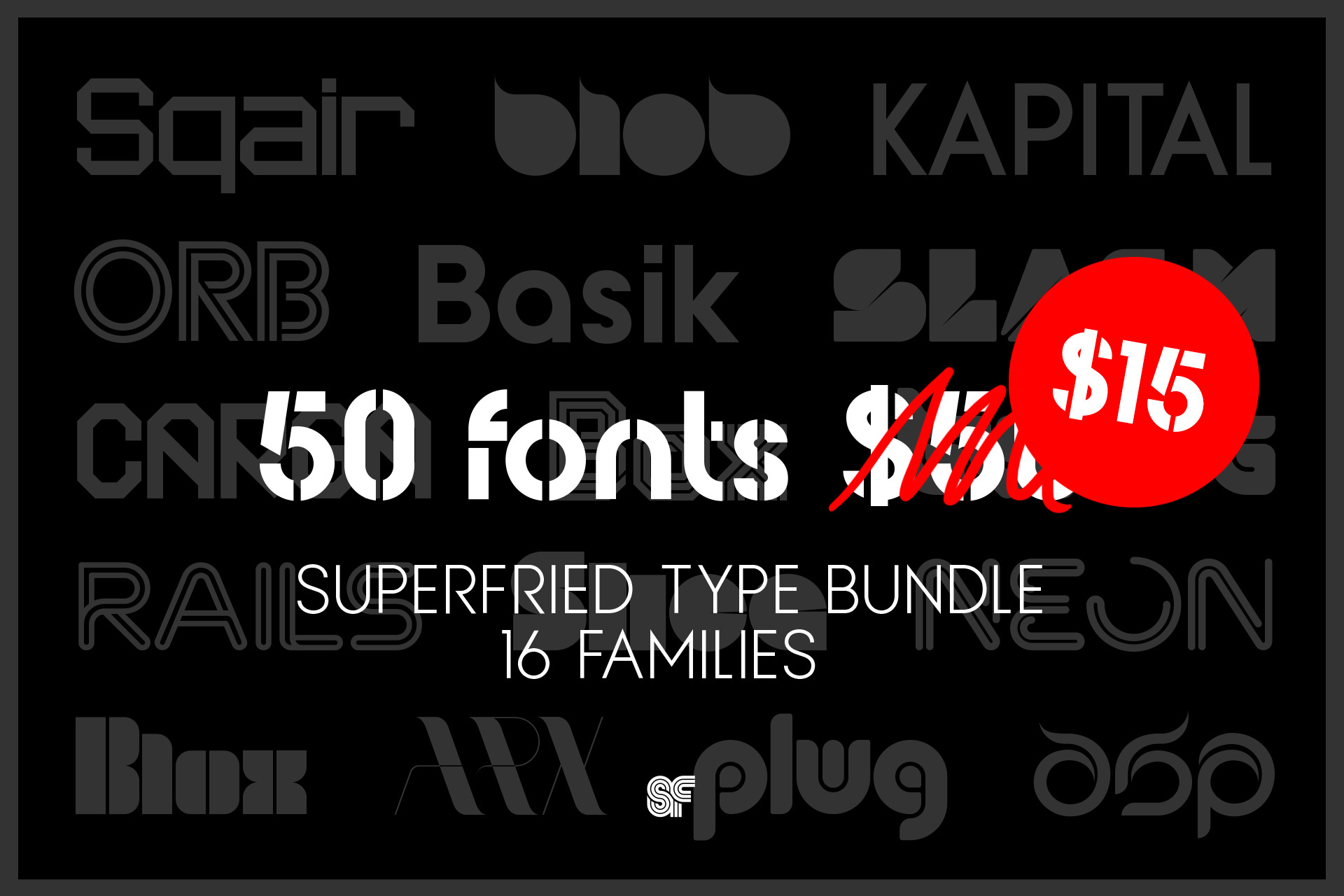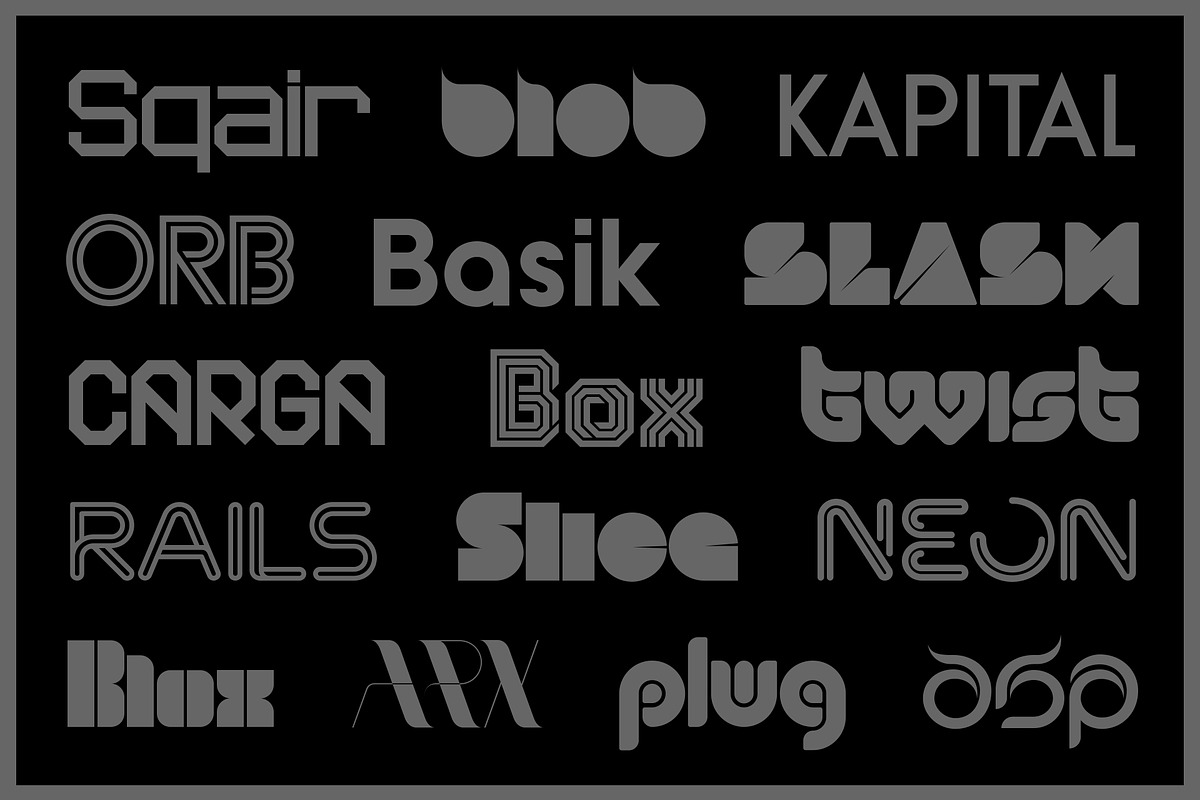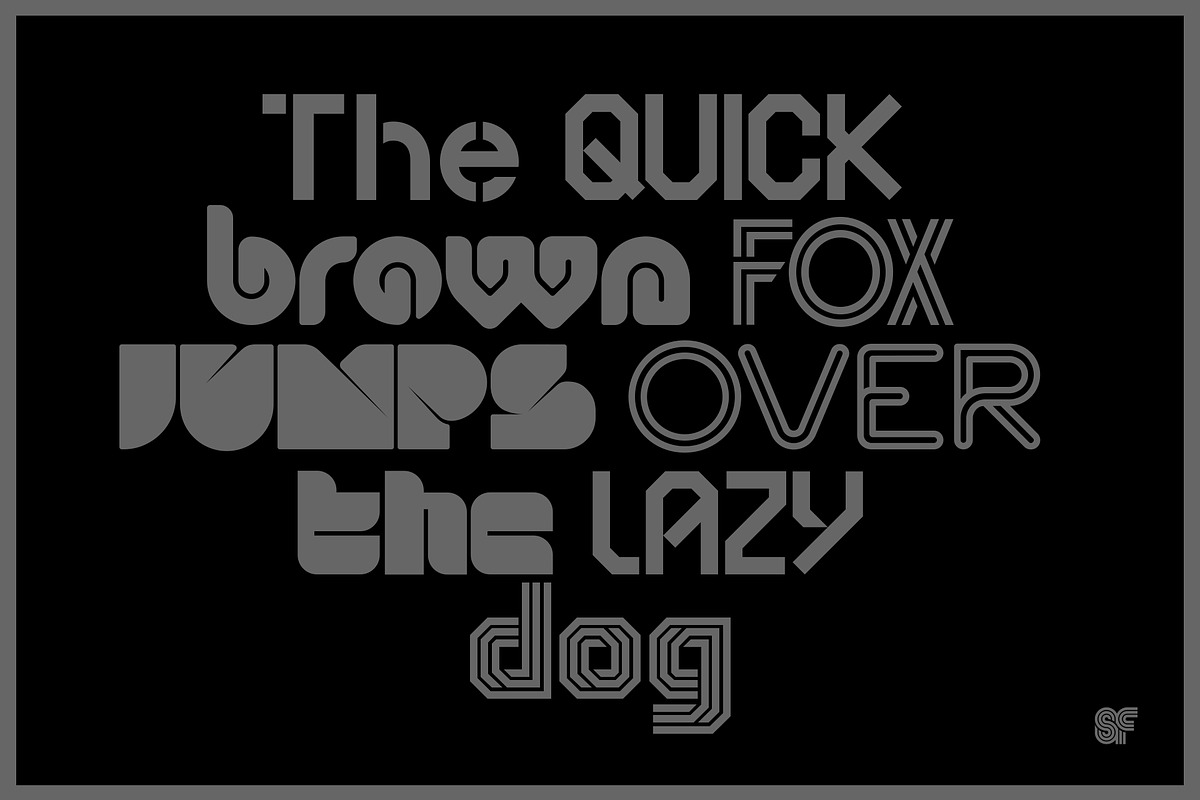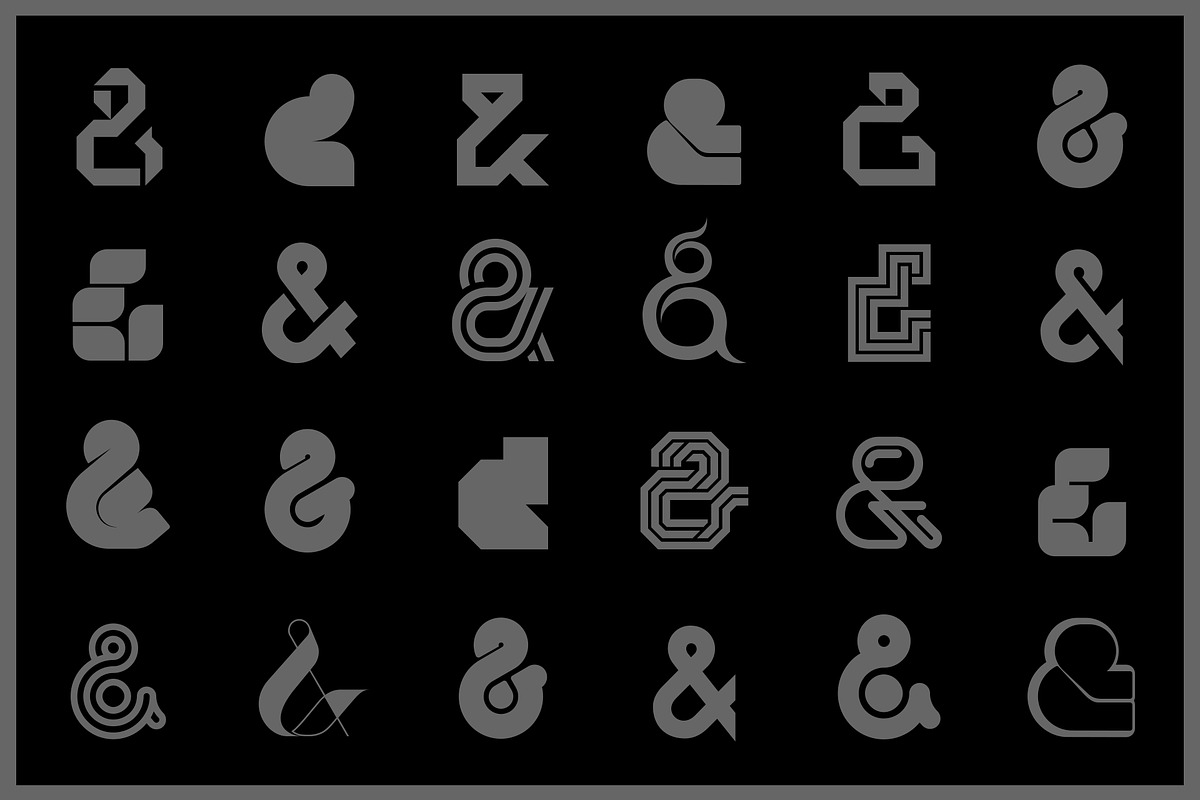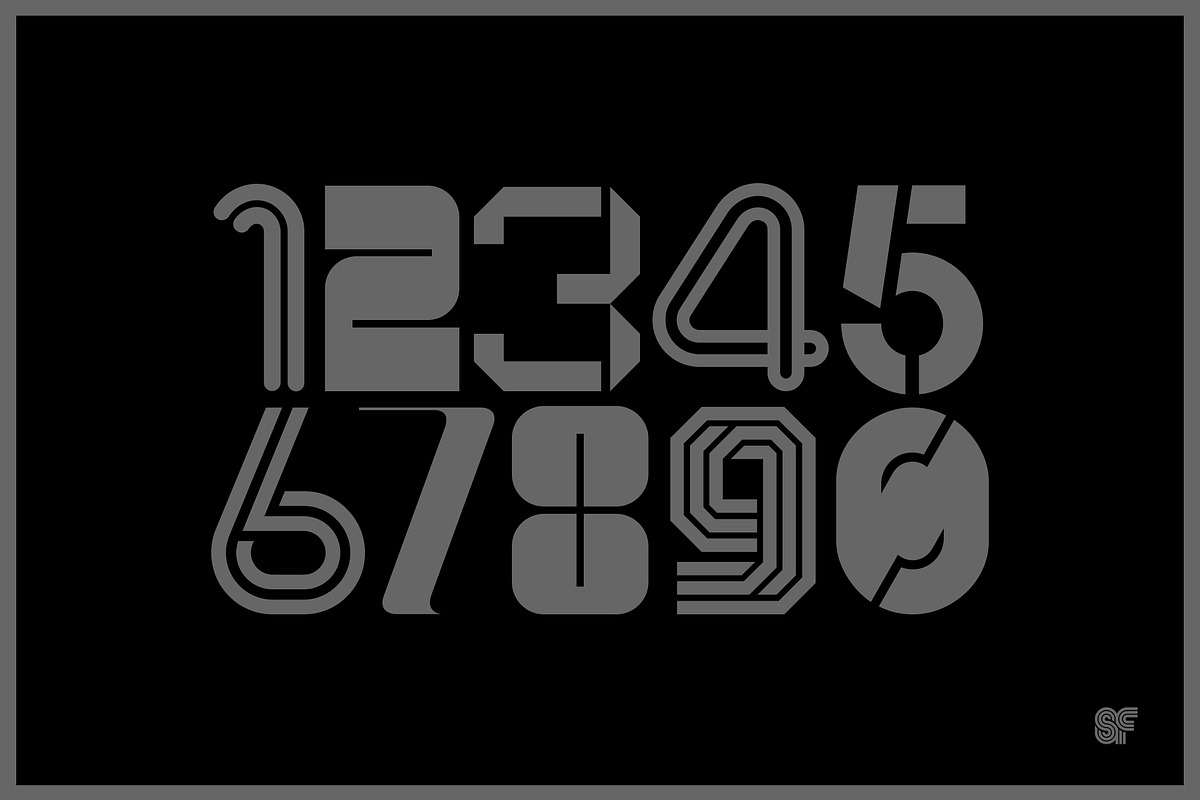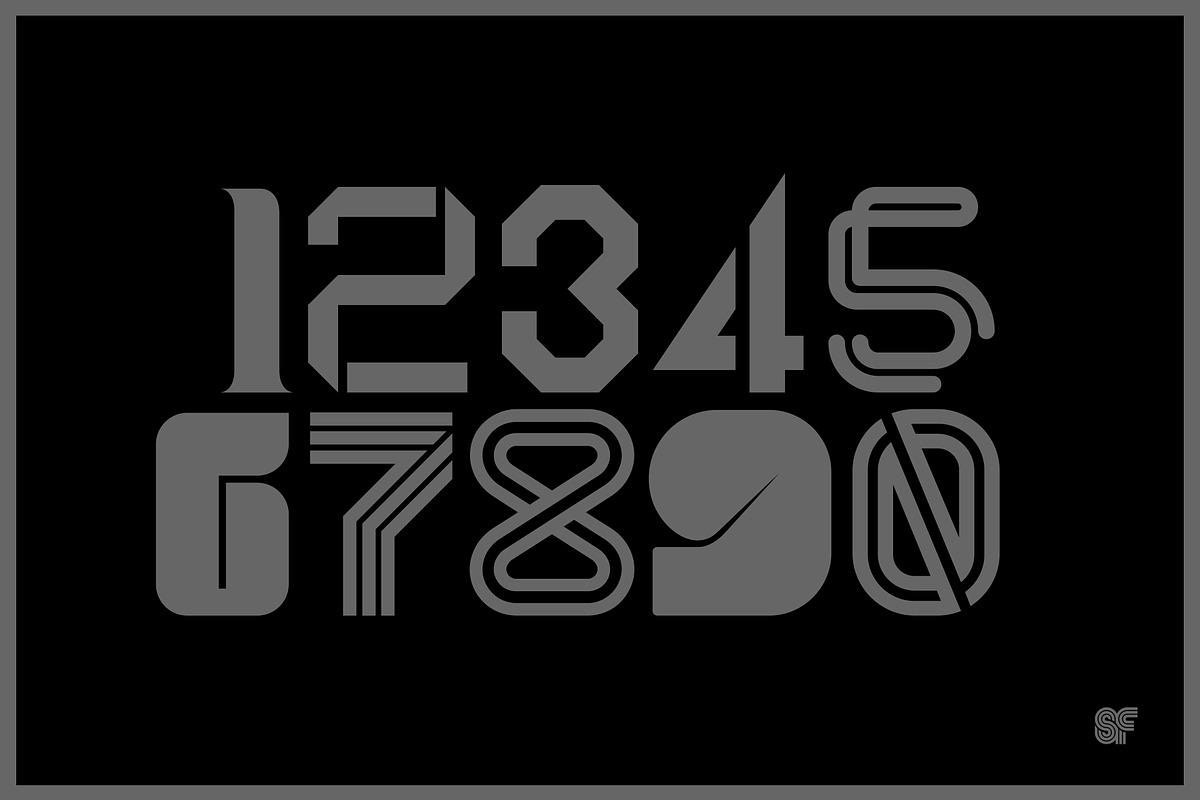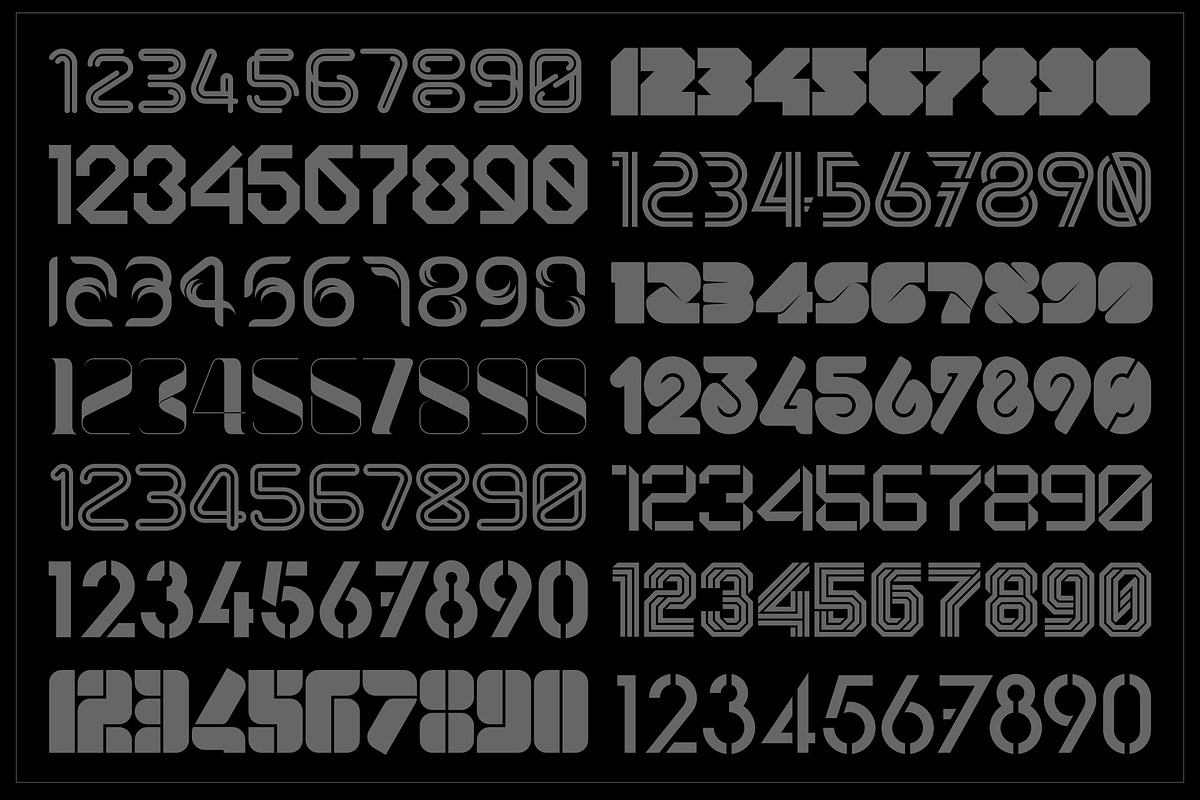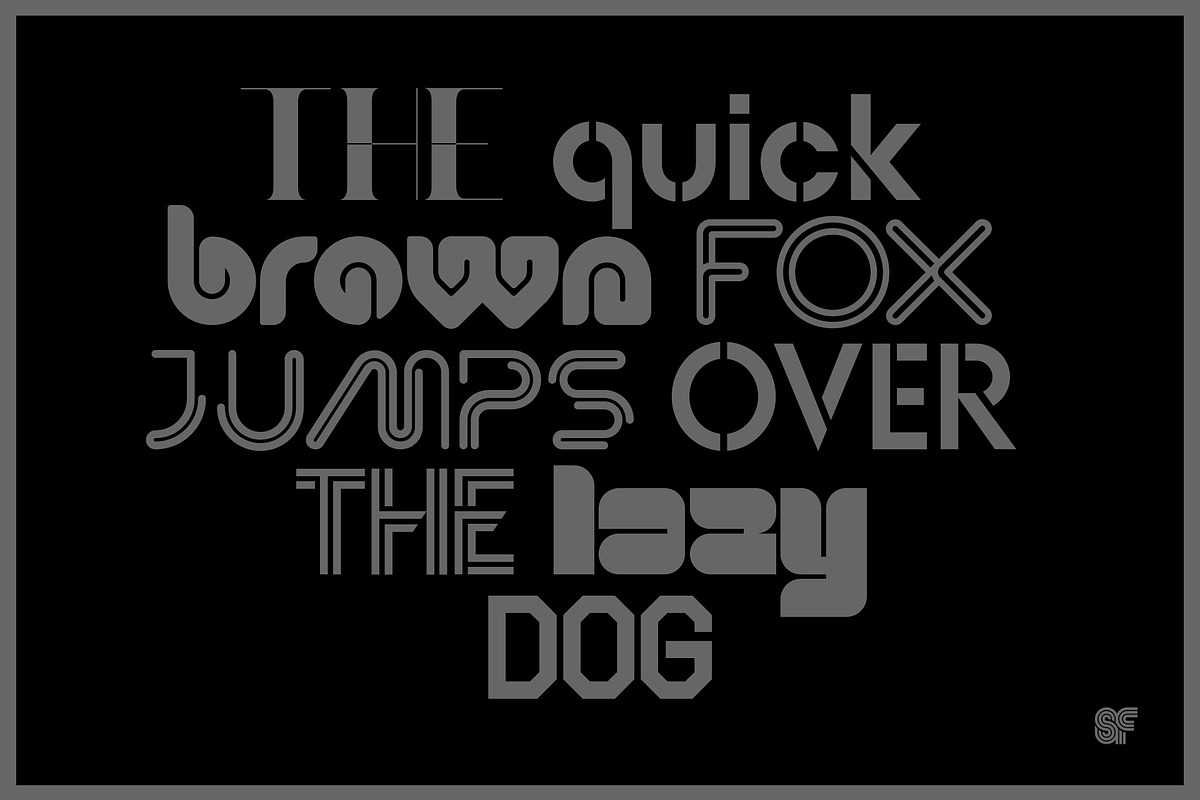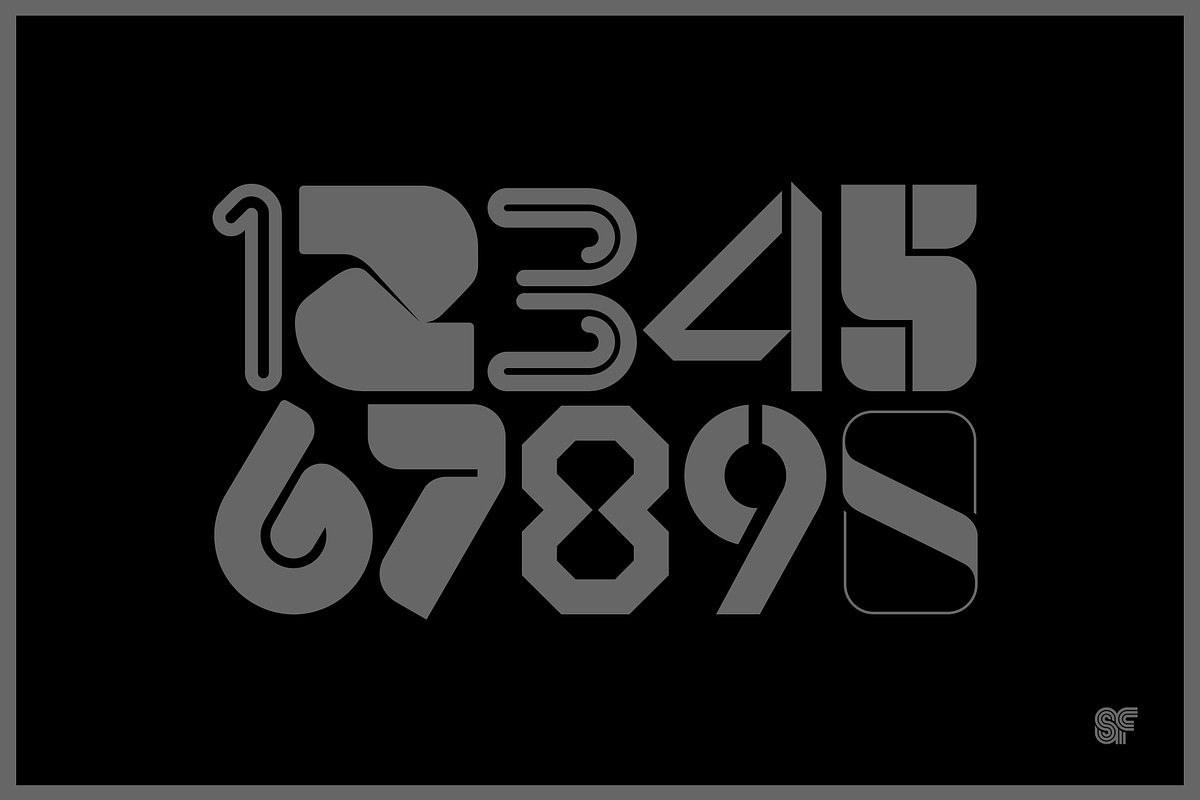
Superfried Type Bundle | 16 Families – 50 Fonts
As you might expect, Superfried typefaces are varied and experimental in nature. From everyday, multi-weight sans serifs and headline fonts, through to highly conceptual, challenging, and unique styles, which make them a perfect starting point for designers looking for inspiration to take their project in a new direction.
Arx – 3 Fonts | Designed 2015 Arx Display • Arx Display Fade • Arx Display Outline
Asp | Designed 2015 Asp Display
Basik – 4 Weights | 8 Fonts | Designed 2011 Basik Book • Basik Book Stencil • Basik Medium • Basik Medium Stencil • Basik Bold • Basik Bold Stencil • Basik Heavy • Basik Heavy Stencil
Blob – 2 Fonts | Designed 2011 Blob Round • Blob Square
Blox – 3 Fonts | Designed 2011 Blox Vertical • Blox Horizontal • Blox Incision
Box – 6 Fonts Box Display 2025 • Box Solid 2025 • Box Display • Box Solid • Box In • Box Out
Carga – 2 Fonts | Designed 2015 Carga Display • Carga Display Cut
Kapital – 4 Weights | 8 Fonts | Designed 2018 Kapital Light • Kapital Regular • Kapital Medium • Kapital DemiBold • Kapital Light Stencil • Kapital Regular Stencil • Kapital Medium Stencil • Kapital Demi Stencil
Neon | Designed 2014 Neon Display \[2 styles\]
Orb – 2 Fonts | Designed 2015 Orb Display \[2 styles\] • Orb Outline \[2 styles\]
Plug | Designed 2015 Plug Display
Rails – 4 Fonts | Designed 2014 Rails Display • Rails Solid • Rails Display Solid • Rails Broken Solid
Slash – 3 Fonts | Designed 2011 Slash Display • Slash Outline • Slash Offset
Slice | Designed 2011 Slice Display
Sqair – 4 Fonts | Designed 2011 Sqair Solid • Sqair Stencil • Sqair Retro • Sqair Retro Stencil
Twist | Designed 2015 Twist Display
Superfried fonts are distinct and vary dramatically in style. They have been featured in numerous online and print publications including...